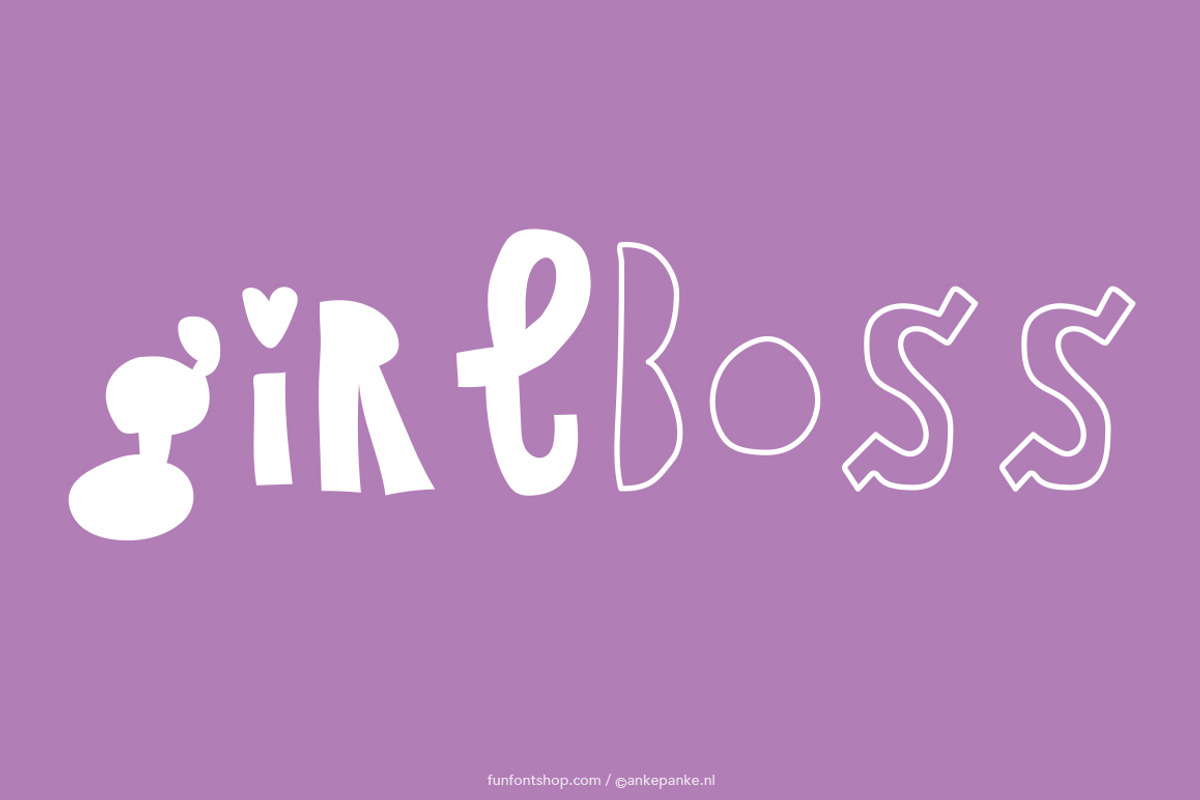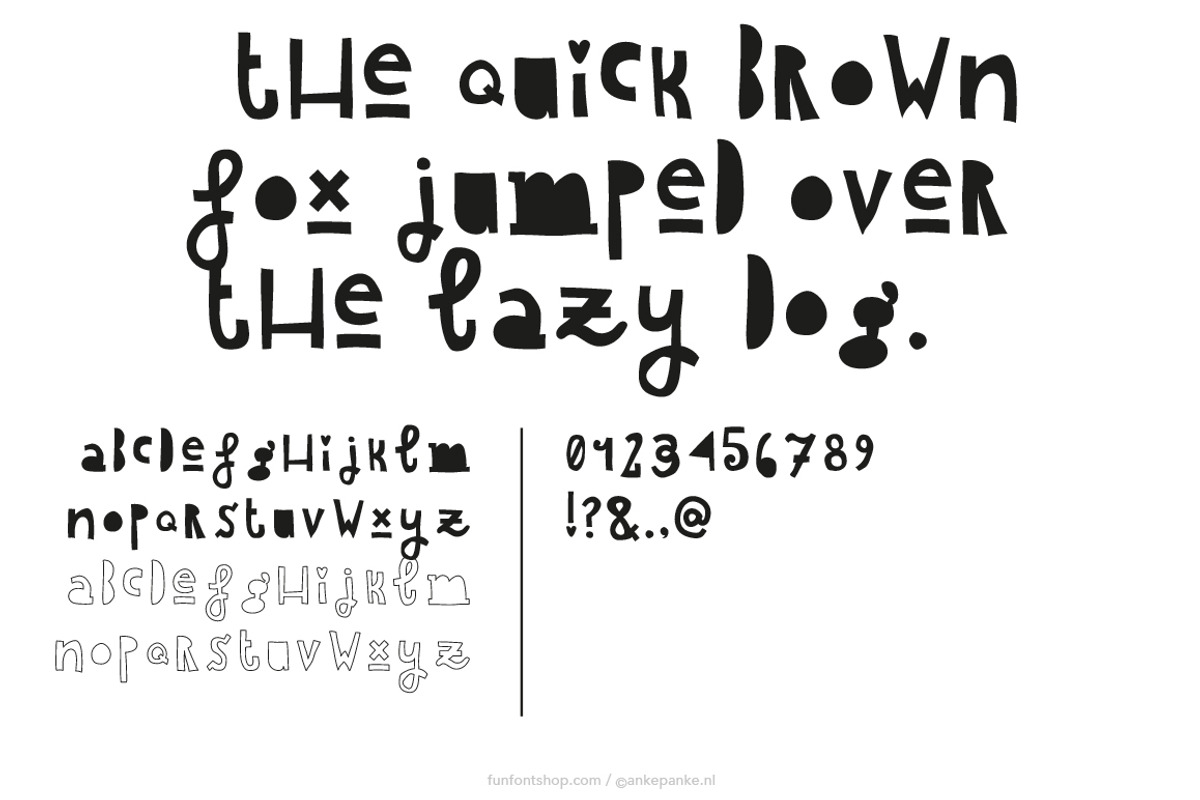
Girlboss font
The shape of the letters of this playful font are the same for lower- and uppercase, but solid and outline, fun to mix it up!
- Letters Uppercase and numbers
- Punctuation !?&.,@